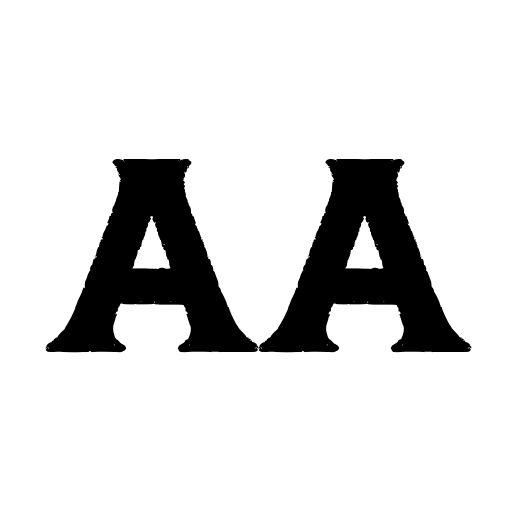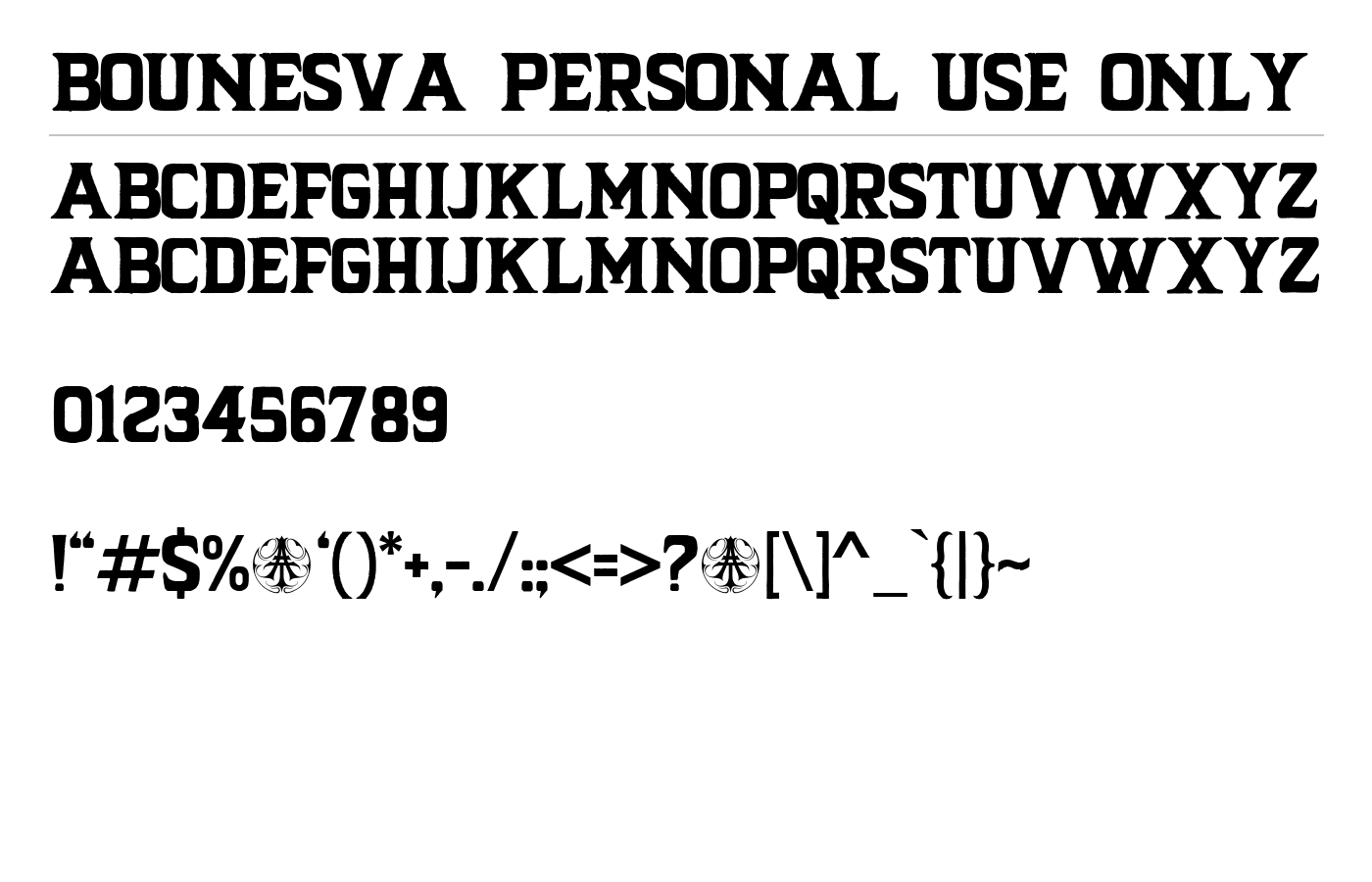
Bounesva Personal Use Only is a bold, condensed slab serif font with a strong, vintage character. Its thick, blocky serifs and tight spacing give it a robust and impactful presence, making it ideal for creating memorable headlines, logos, and branding with a rugged, classic vibe. This font works well in designs that need a powerful, authoritative look while maintaining a touch of old-fashioned charm.